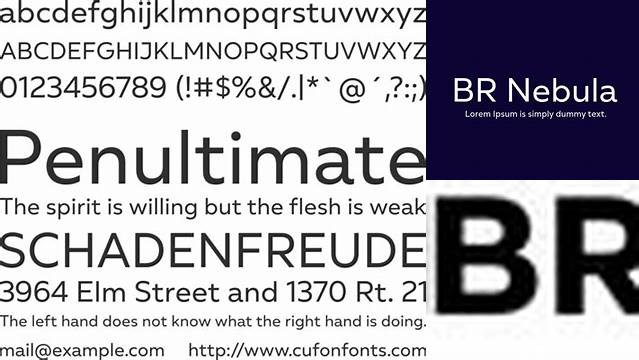
BR Nebula font free download is a popular choice for designers looking for a modern and versatile typeface. This article provides everything you need to know about the BR Nebula font, including where to download it for free, its features, and how to use it effectively in your design projects. We'll dive deep into the font's characteristics, explore its various applications, and offer tips to make the most of this fantastic font. Whether you're a seasoned designer or just starting, this guide will help you unlock the full potential of the BR Nebula font.
What is the BR Nebula Font?
So, what exactly makes the BR Nebula font so special? Well, it's a contemporary sans-serif font known for its clean lines and geometric shapes. This gives it a sleek and modern aesthetic, making it suitable for a wide range of design projects. The font family typically includes various weights and styles, from thin to bold, allowing for diverse usage. The versatility of the BR Nebula font is one of its most significant strengths. It can be used for everything from headlines and titles to body text and even logos. Guys, imagine how many options this opens up for you! Its readability is another key feature. The clear and well-defined letterforms ensure that text remains legible even at smaller sizes, making it a great choice for both print and digital media. This ensures a user-friendly experience, whether you're designing a website, creating marketing materials, or working on a personal project. The careful design of each character makes it a pleasure to read, while the modern aesthetic keeps your designs looking current. The geometric structure also provides a sense of order and consistency. The geometric precision of the font lends a sense of professionalism and sophistication. It's a great option for anyone looking to create a strong visual impact.
Beyond its appearance, the BR Nebula font is often celebrated for its legibility and its ability to adapt to many different projects. Its clean lines and balanced proportions make it easy on the eyes. This is a major plus when you're designing something that people need to read, because no one wants to strain their eyes while trying to understand your message! That's why BR Nebula font is so popular, and has become a favorite among designers. The font also tends to offer good kerning and spacing, further enhancing its readability. Kerning refers to the space between specific letter pairs, and good kerning ensures that words look balanced and well-structured. These features combine to make the BR Nebula font a practical and aesthetically pleasing choice. The creators of this font have clearly put a lot of thought into every aspect of its design. This attention to detail results in a cohesive and visually appealing typeface that looks fantastic in various formats. So, whether you're working on a brochure, a website, or a social media graphic, the BR Nebula font is likely to serve you well. It's a workhorse font that is always ready to deliver. With so much value, the BR Nebula font is really a great choice for design projects.
The BR Nebula font isn't just about looks; it's about functionality. Understanding its key features and characteristics can help you use it more effectively. One of the most notable characteristics is its geometric design. The font's clean lines and precise angles give it a modern and sophisticated feel. This geometric approach creates a visually appealing consistency throughout the entire typeface. It makes it perfect for designers who want to create a polished and professional look. The multiple weights available, from thin to bold, are also a significant advantage. This allows you to use the same font family in different contexts, from headlines and subheadings to body text. Being able to vary the weight adds depth and visual interest to your designs. This flexibility makes the BR Nebula font suitable for almost any design project. Its versatility is enhanced by its excellent readability. Even at smaller sizes, the letterforms remain clear and easy to distinguish. Good readability is crucial for any font, and the BR Nebula font excels in this area. Whether you're designing for print or digital media, your audience will appreciate the ease with which they can read your content. The font also offers good kerning and spacing, meaning the space between letters is optimized for visual harmony. This attention to detail helps improve the overall aesthetic. This meticulous kerning also makes the font look more professional, which enhances the readability of text, and ultimately, user experience. So, if you're looking for a font that combines style, functionality, and readability, the BR Nebula font is a strong contender. The thoughtful design of its features makes it a valuable asset for any designer.